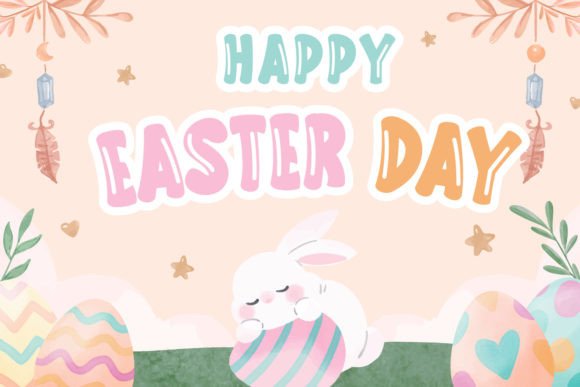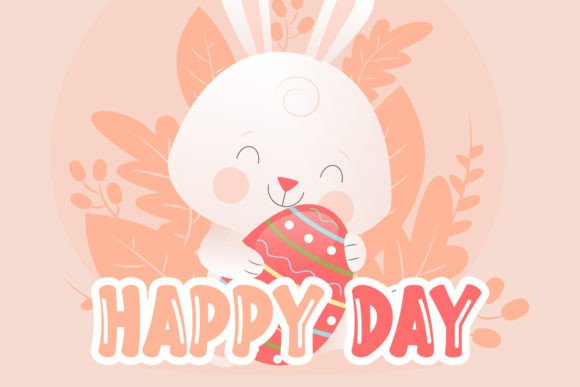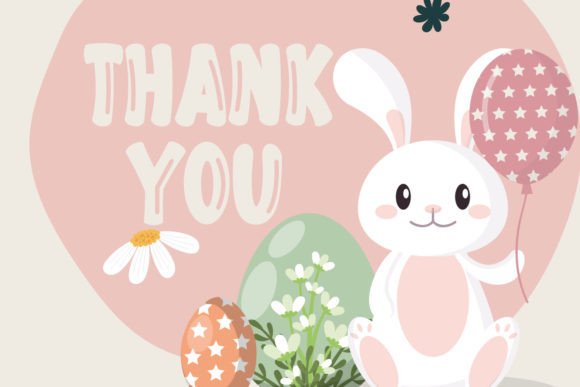
Introduction to Loving Vibes Font
Have you ever stumbled upon a design element that instantly sparks an idea for your next creative project? For many designers, this moment is a treasure trove of inspiration, and it’s exactly what happens when you lay eyes on the Loving Vibes Font. This bold, decorative, and quirky display font is the perfect addition to any design, bringing a friendly and summery feel that’s sure to make your ideas stand out.
Whether you’re working on a branding project, creating social media graphics, or designing a website, the Loving Vibes Font is an invaluable resource that can elevate your designs to the next level. Its versatility and unique charm make it a must-have for designers looking to add a touch of personality to their work.
Key Features of Loving Vibes Font
- The Loving Vibes Font is a high-quality design resource ideal for creative projects, offering a unique and playful aesthetic.
- Loving Vibes Font features a transparent background, making it easy to layer and customize for various design applications.
- Designed with a modern and whimsical feel, this font is perfect for creating eye-catching titles, headings, and other design elements.
- Loving Vibes Font is available in a single weight, making it easy to use and customize for various design projects.
Honest Review: Loving Vibes Font
I recently stumbled upon the Loving Vibes Font and decided to give it a try in my current design project. As a designer, I’m always on the lookout for high-quality design resources that can help bring my creative vision to life.
- ✨ The Loving Vibes Font has a beautiful, hand-drawn feel that adds a touch of warmth and personality to my design.
- ✨ The font comes with a transparent background, making it easy to place over any background image or color.
- ⚠️ Some of the characters may not display correctly in certain fonts or font sizes.
Overall, I’m impressed with the Loving Vibes Font and would definitely recommend it for personal or small-scale design projects. While it may not be perfect, its unique feel and high quality make it a great addition to any designer’s toolkit.
Tips for Getting the Most Out of the Loving Vibes Font
Experiment with different font sizes, colors, and combinations to achieve the desired effect. Use the font in conjunction with other design elements to create a cohesive and visually appealing design.
The Loving Vibes Font is ideal for creative projects such as wedding invitations, birthday party decorations, and social media graphics. It’s also a great choice for personal branding and logo design.